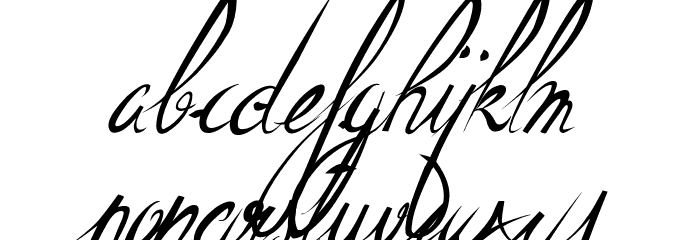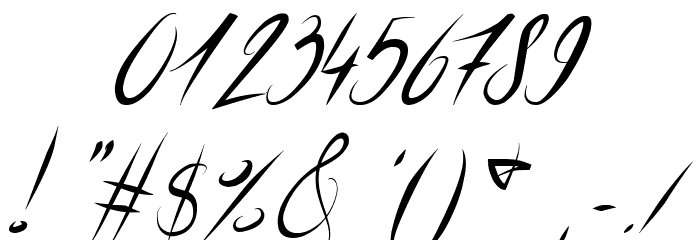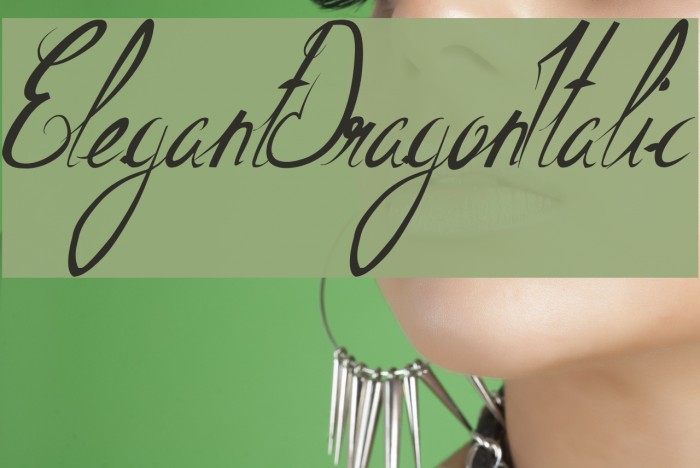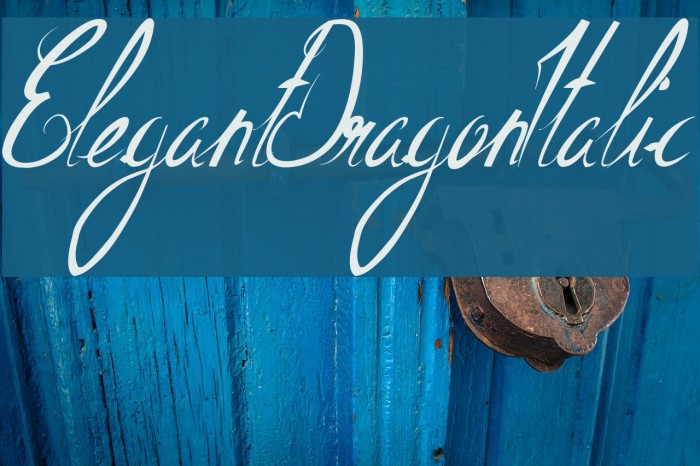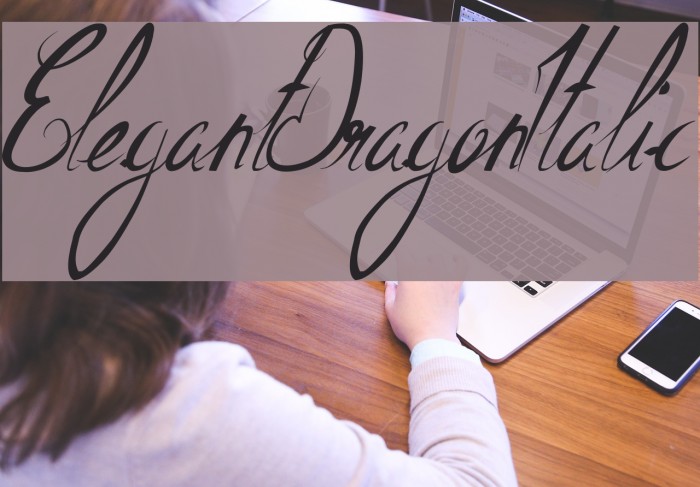
ElegantDragonItalic Font
This font exudes elegance and sophistication with its flowing, cursive style. The characters are intricately designed with sweeping curves and flourishes, giving it a dynamic and graceful appearance. The uppercase letters are particularly ornate, featuring elaborate swirls that extend beyond the baseline and cap height. The lowercase letters maintain a consistent style, with smooth connections between strokes, enhancing the fluidity of the text. Numbers and special characters are crafted with the same attention to detail, ensuring a cohesive look across all elements. The overall impression is one of refined artistry, making it ideal for projects that require a touch of class and elegance.
A sophisticated, cursive font with elegant, flowing strokes and ornate details.
- Proposed Projects: Ideal for wedding invitations, luxury branding, elegant logos, and high-end product packaging.
- Category: Script
- Character Spacing: Tight
- Contrast: High
- Overall Style: Elegant
- Use Case: Logos, Invitations, Branding